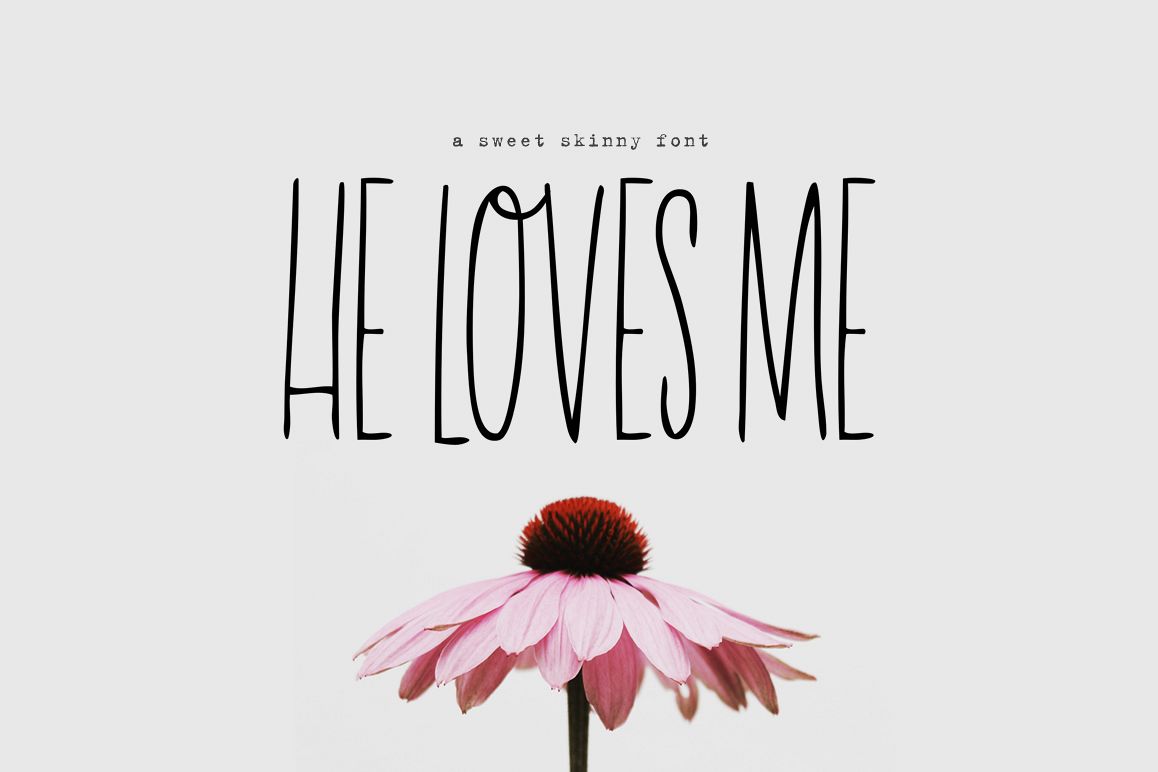
He Loves Me Skinny Font
Helovesme-Regular
A classic but original, imperfect skinny font with lots of sweetness!
• All caps font
• Numbers and punctuation